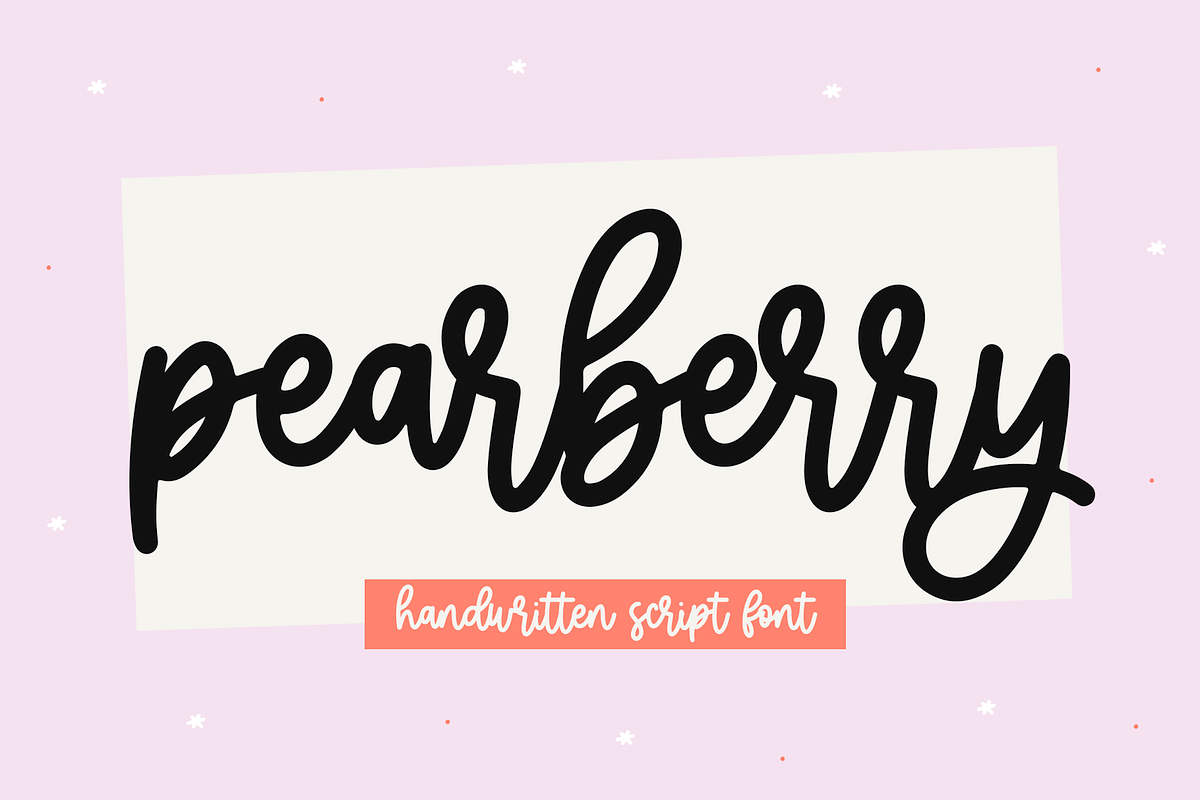
Pearberry | Handwritten Script Font Free Download is a sweet and elegant script typeface that captures the charm of natural handwriting. Perfect for wedding invitations, feminine branding, social media posts, and product packaging, this font adds a personal and graceful touch to any design.
With smooth curves and a delicate flow, Pearberry | Handwritten Script Font Free Download is ideal for creatives who want to bring warmth and authenticity to their typography. Whether you're designing a boutique logo or a heartfelt quote graphic, Pearberry delivers a soft, stylish presence. Try it out in your next design to experience its charm—then upgrade to a commercial license when you’re ready to launch your project professionally.